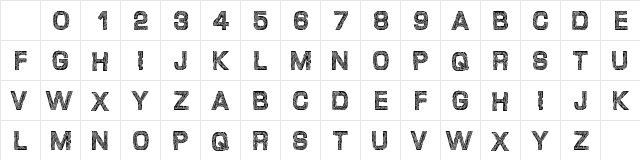
Desgarvuda Regular
Designer: kaiserzharkhan
Design Context for Desgarvuda
Desgarvuda is a composed and adaptable typeface that performs quietly and consistently across a wide range of design contexts.